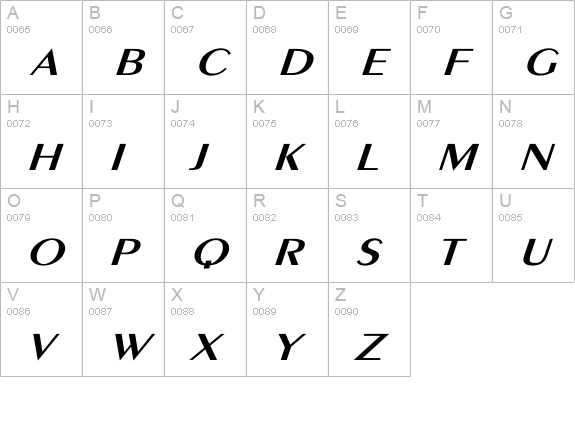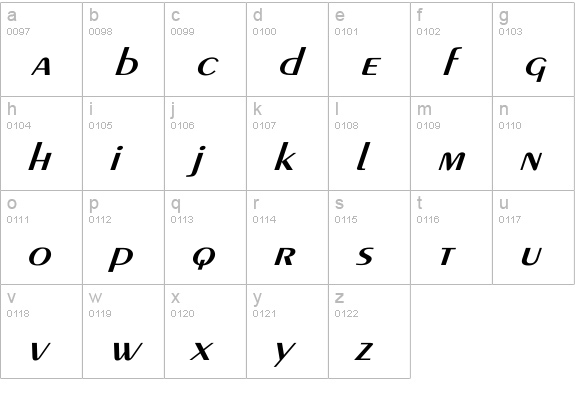
Exotic-Demi Wd Italic is a sub-bold, structured, italic variant in the Exotic typeface family \xE2\x80\x94 well suited to sub-headlines and emphasised passages.
The Exotic-Demi Wd Italic font is a striking and modern typeface that exudes sophistication and elegance. Its sleek and stylish design is perfect for adding a touch of luxury to any project. The italicized version of this font adds a sense of flair and drama, making it ideal for creating eye-catching headlines or emphasizing important text. What sets the Exotic-Demi Wd Italic font apart is not only its unique and distinctive look but also the fact that it is available for free download at FontsMarket.com. This means that you can easily access and use this beautiful font in your designs without any cost, making it a valuable resource for both personal and commercial projects. Whether you're looking to elevate your branding, create stunning graphics, or enhance your website design, the Exotic-Demi Wd Italic font is sure to make a statement. Download it for free today and unleash your creativity with this elegant and versatile typeface.